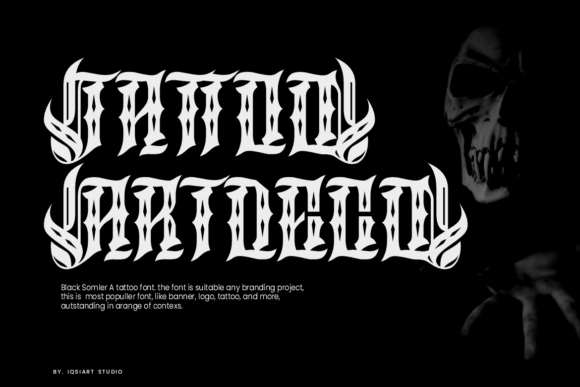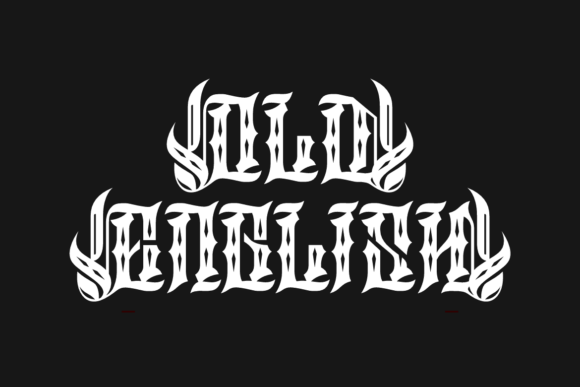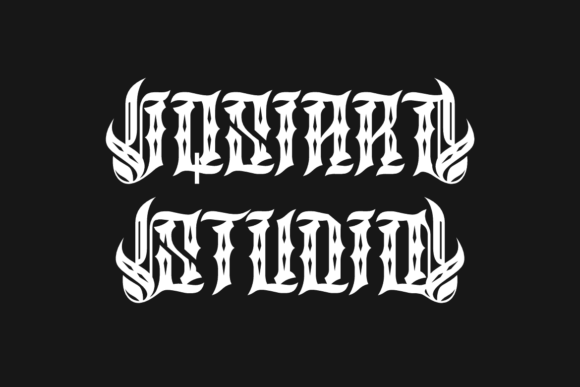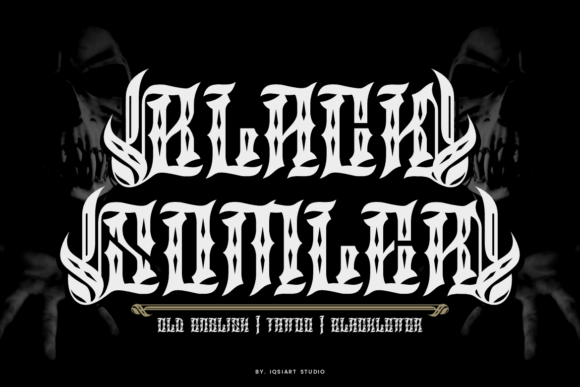
Introduction to Black Somler Font
Black Somler is a bold and thick lettered blackletter font.
Add it confidently to your projects, and you will love the results This font is PUA encoded which means you can access all of the glyphs and swashes with ease.